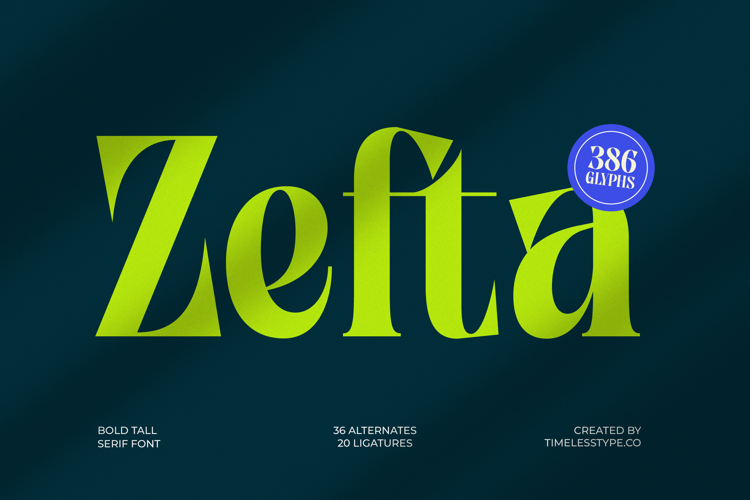
Zefta - Bold Tall Serif Font
Elevate your designs with unparalleled elegance and commanding presence. Introducing Zefta - Bold Tall Serif Font, a striking typeface meticulously crafted to exude sophistication and impact. Its unique blend of bold weight and tall proportions creates a captivating visual dynamic. This high-contrast serif instantly grabs attention, perfect for projects demanding refined power and modern appeal.
Unlock limitless creative possibilities with Zefta - Bold Tall Serif Font’s extensive features. Boasting 386 glyphs, including 36 alternates and 20 ligatures, this font offers exceptional stylistic control and customization. Its beautifully sculpted serifs and elegant curves ensure every character contributes to a cohesive and visually rich typographic experience.
Command attention with sophisticated flair across diverse platforms. Zefta - Bold Tall Serif Font is perfect for luxury branding, high-end packaging, prestigious editorial layouts, and impactful headlines. Its distinctive aesthetic makes it an ideal choice for fashion magazines, premium product labels, and sophisticated websites, effortlessly conveying exclusivity and timeless appeal